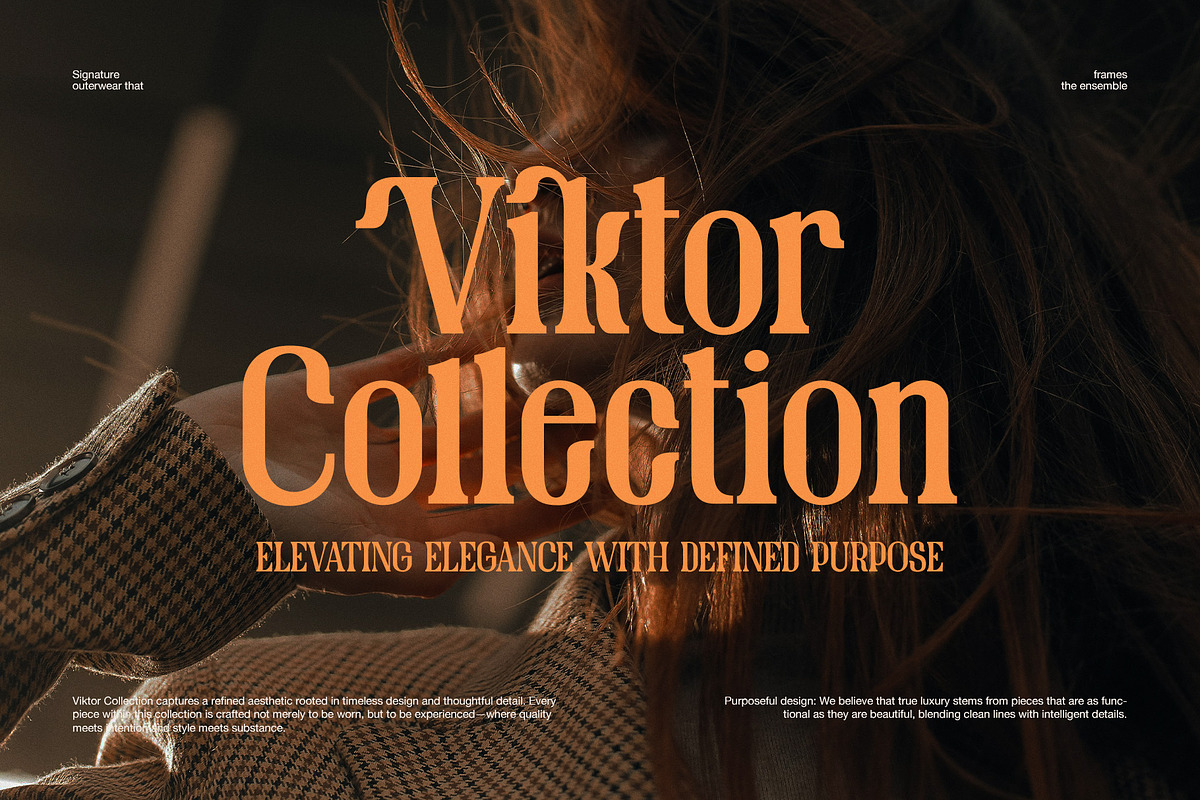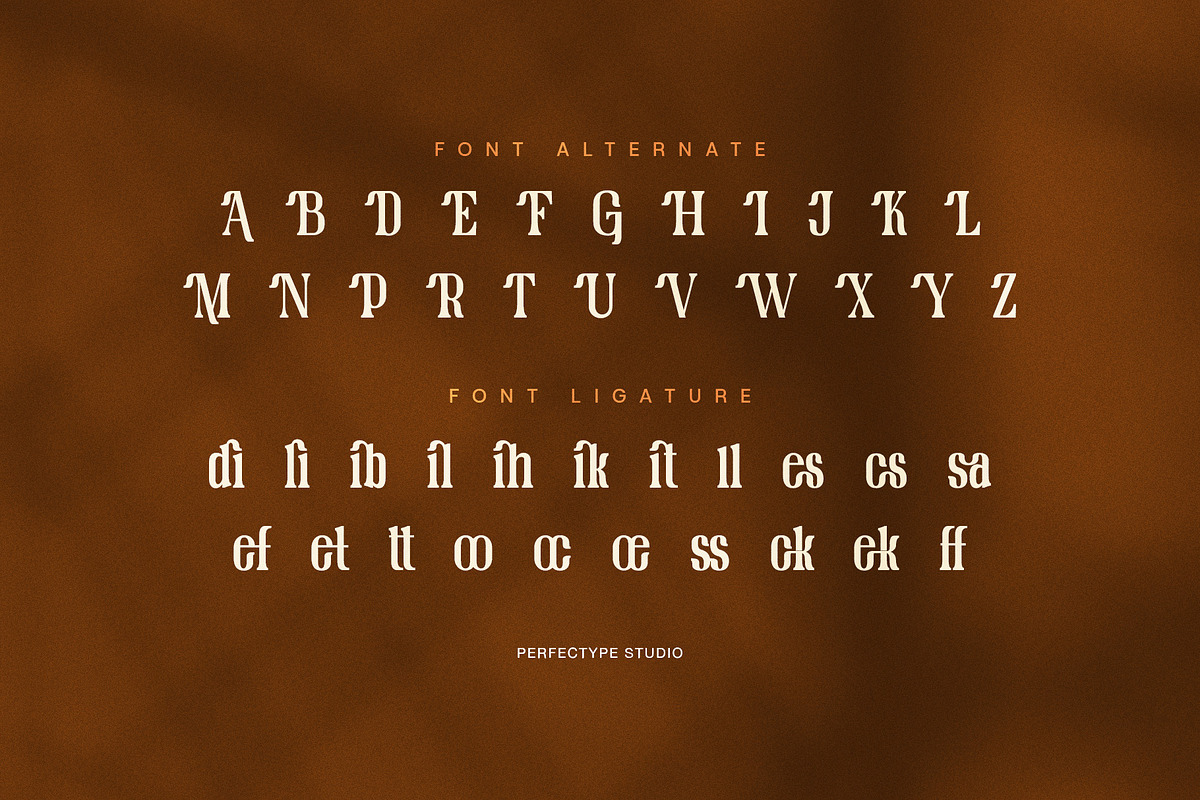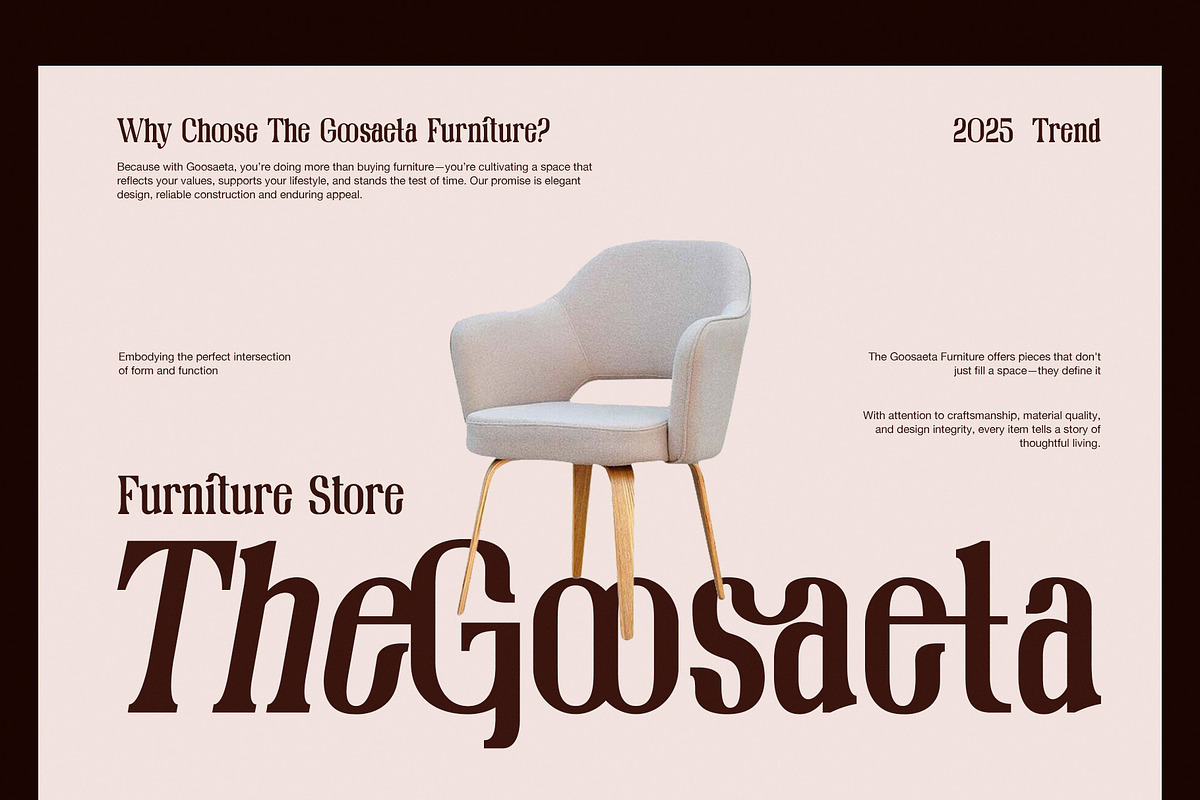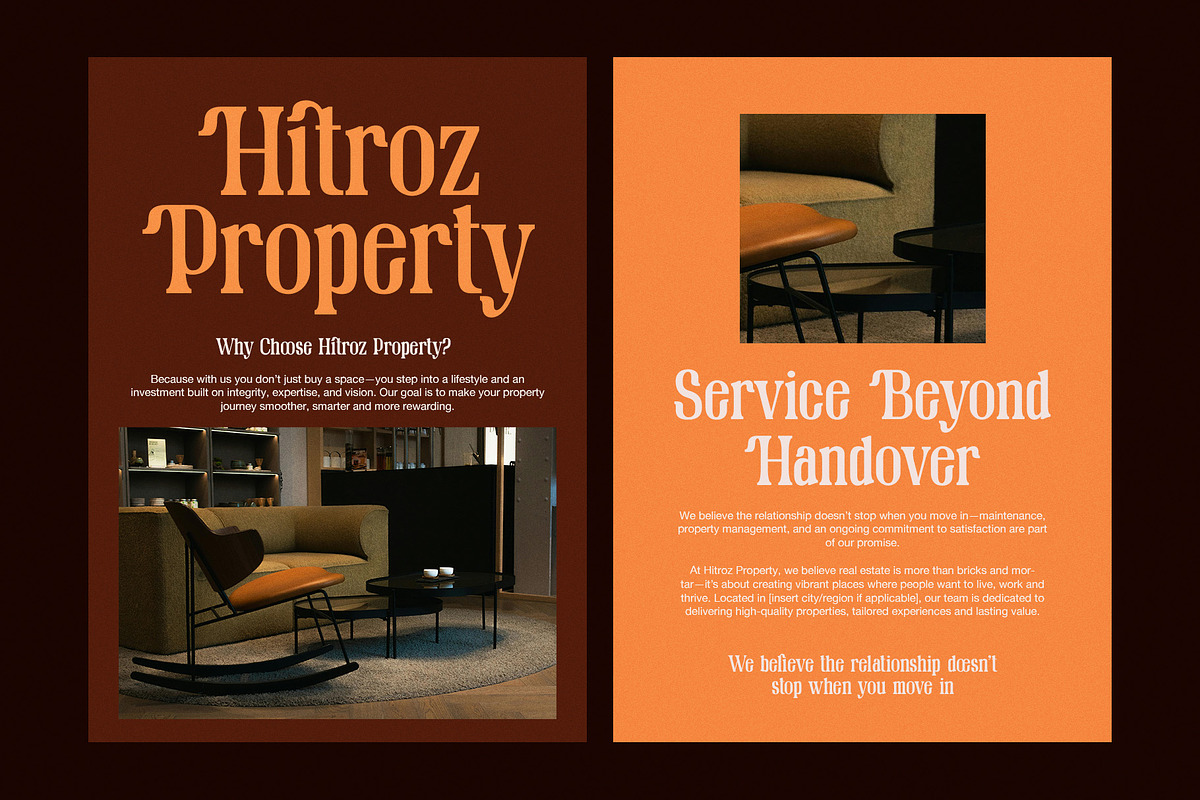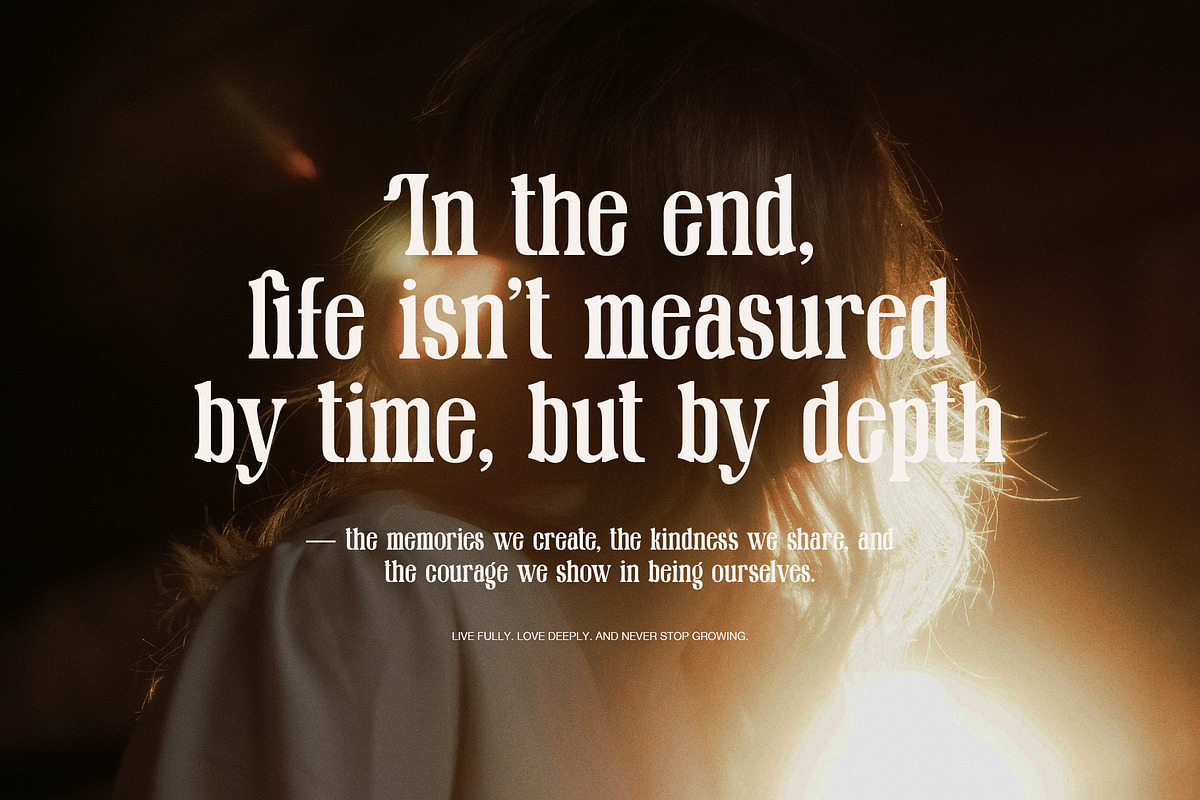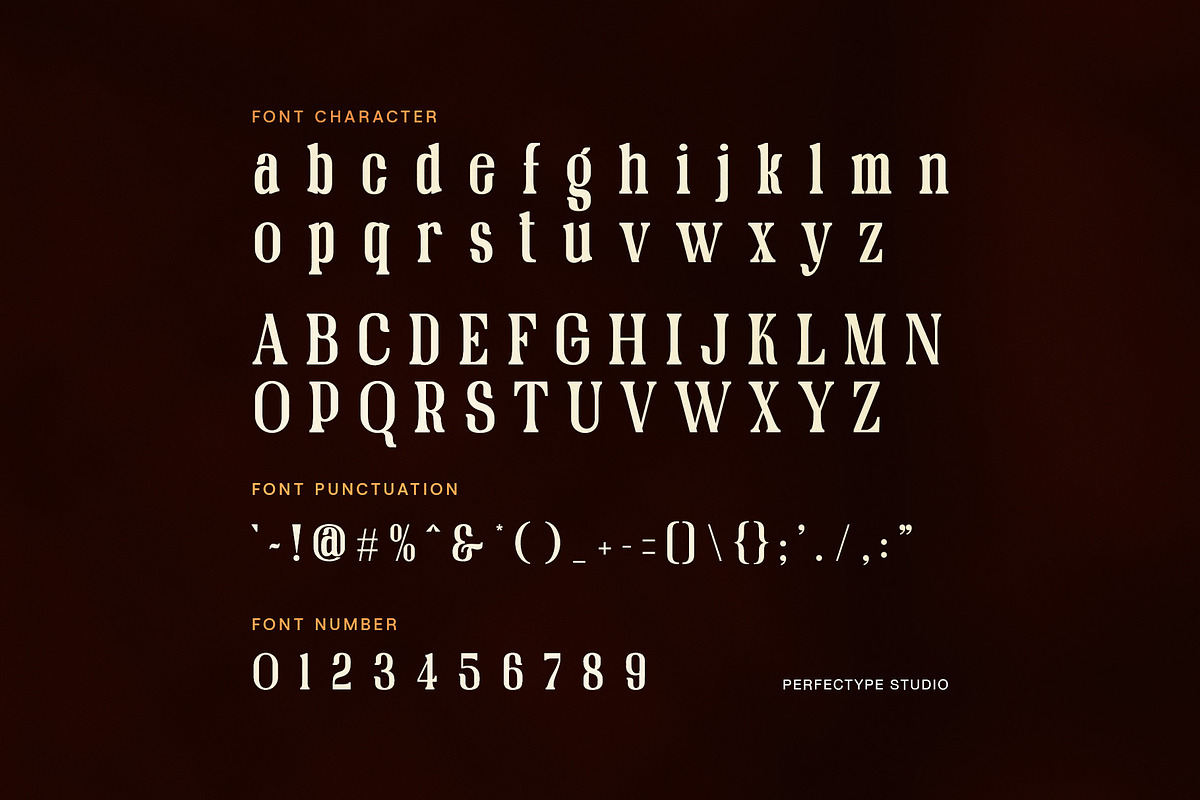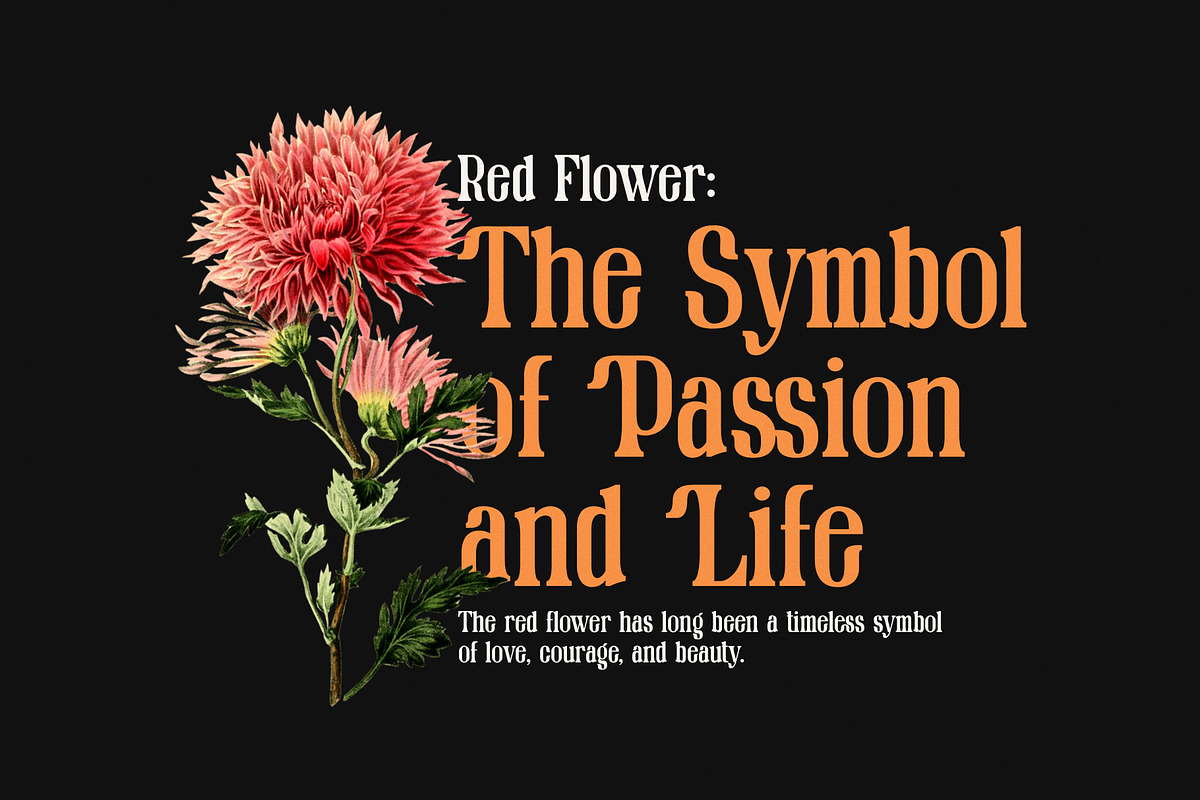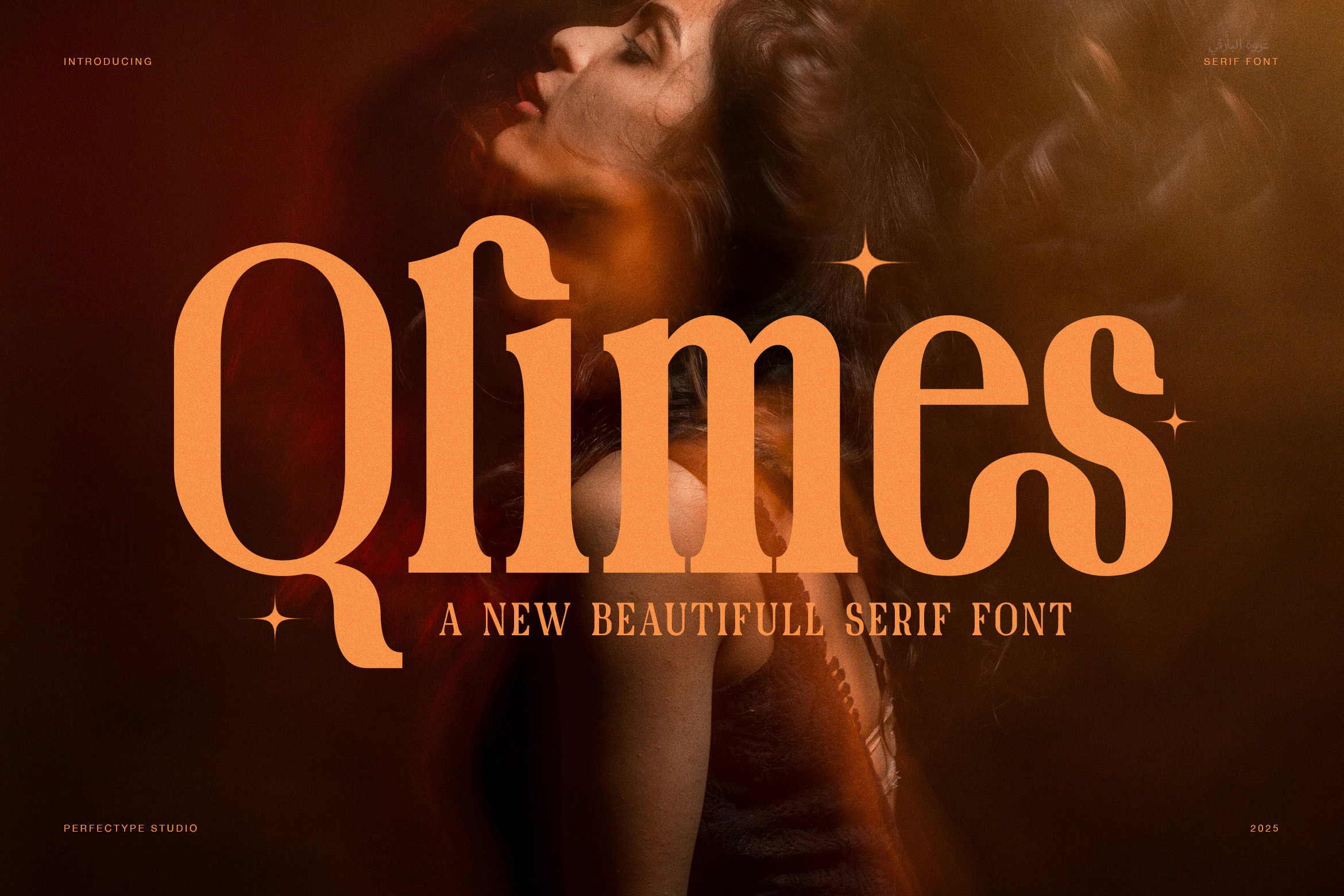
Qlimes modern retro serif font
Qlimes is a modern retro serif font that blends vintage character with a bold, elegant presence. Designed for creators who value both nostalgia and refinement, Qlimes delivers a fresh interpretation of classic serif typography. Its soft curves and high-contrast strokes bring warmth and sophistication to every design.
Each letter in Qlimes carries an artistic rhythm that feels timeless yet current. Because of its unique ligatures and alternates, this typeface adds personality and depth to every word. Whether you design for luxury brands, fashion editorials, or modern packaging, Qlimes makes every composition stand out beautifully.
Why Choose Qlimes?
Elegant serif design with modern retro flair
Includes uppercase, lowercase, punctuation, and numbers
Features creative ligatures and alternates
Works perfectly for branding, packaging, and editorials
Combines nostalgic charm with modern readability
Qlimes works wonderfully across digital and print media. Its bold yet refined forms make it perfect for magazine titles, beauty branding, boutique logos, and lifestyle websites. Furthermore, it balances artistic flair with clear legibility, ensuring that your designs remain stylish and professional.
This font evokes emotion and sophistication in equal measure. It’s ideal for those who want their projects to look distinctive and timeless. Because of its versatility, you can easily pair Qlimes with sans-serif fonts for contrast or use it alone for powerful, eye-catching titles.
Whether you’re creating a logo for a high-end product or crafting vintage-inspired posters, Qlimes gives your work confidence, warmth, and identity. Every curve feels deliberate, every serif feels refined, and every word looks like art.
Bring nostalgia and modern beauty together with Qlimes — a serif font that captures the soul of classic design while shining in today’s creative world.